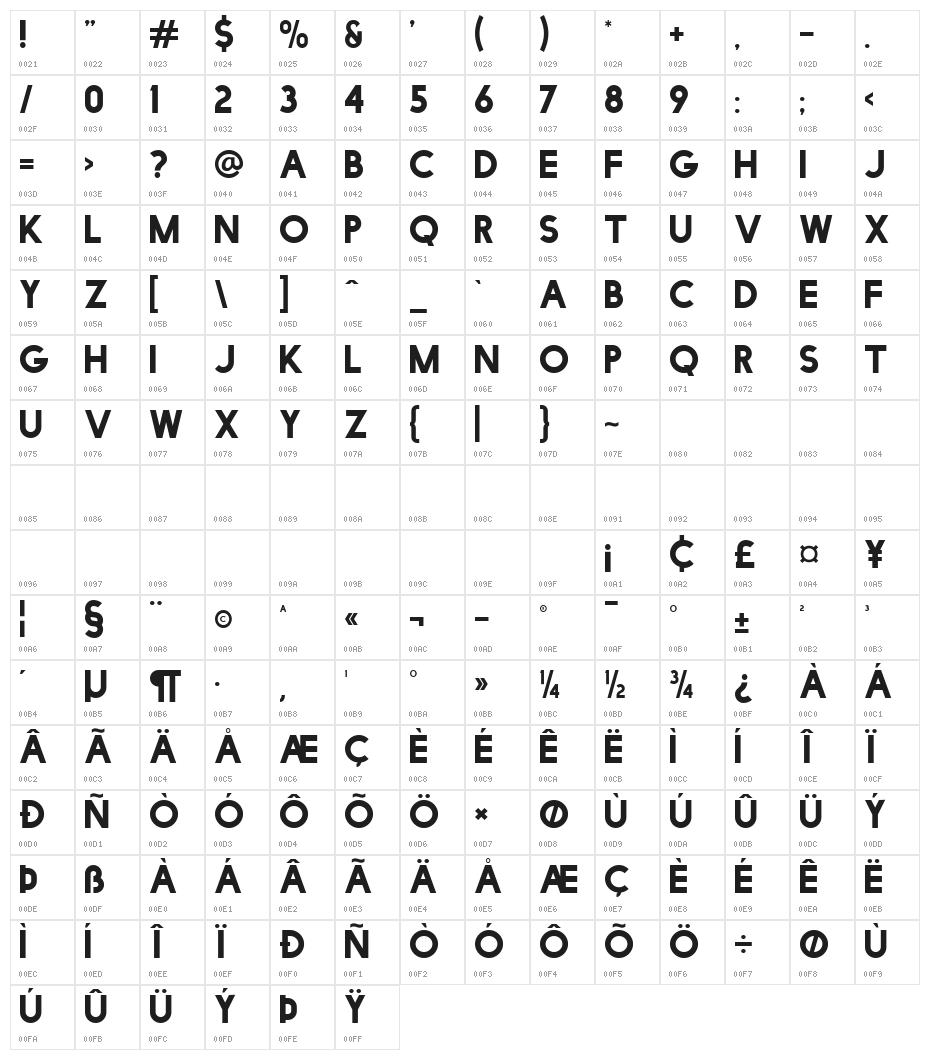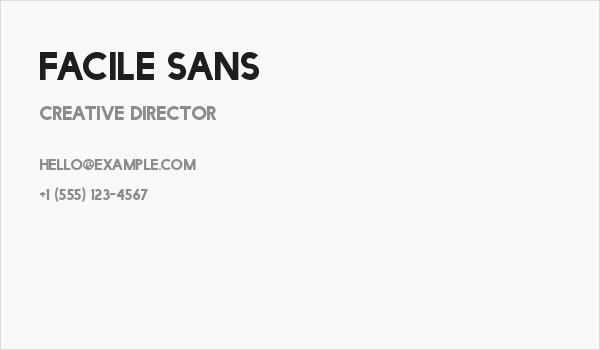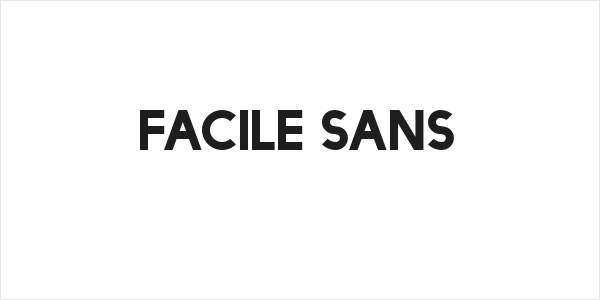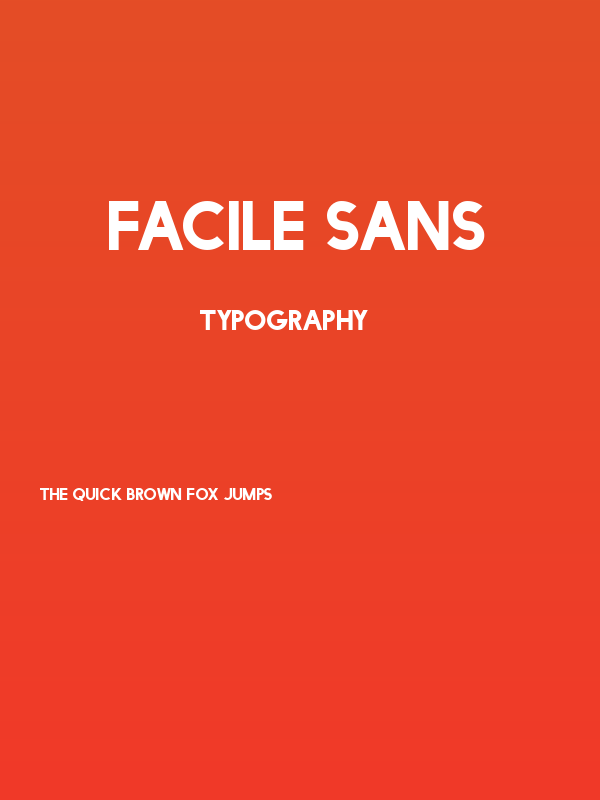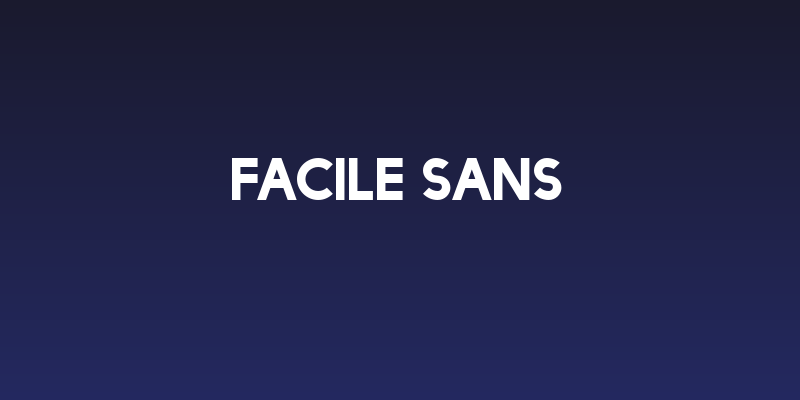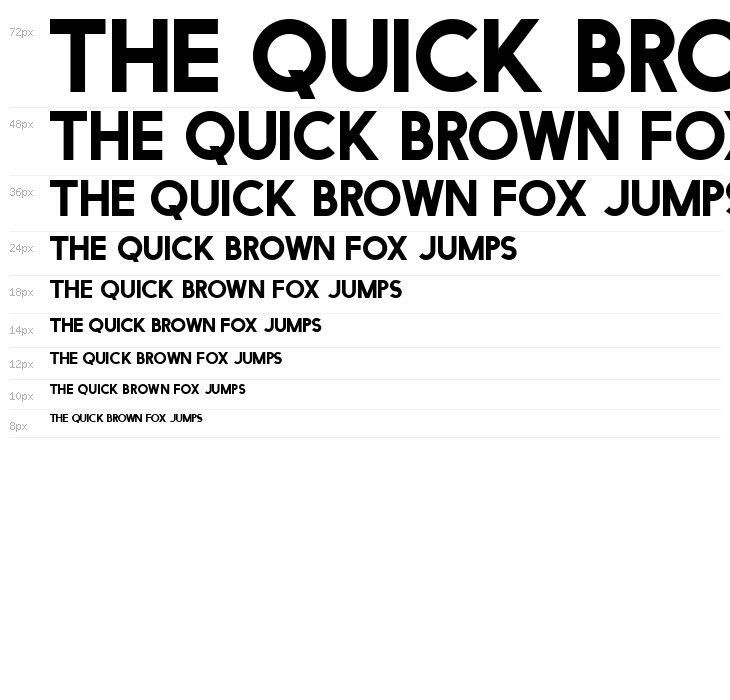
Facile Sans Font
Facile Sans Description
This font features a bold and modern sans-serif design, characterized by clean lines and a strong geometric structure. The uppercase letters are uniform in height, providing a sense of stability and balance. The lowercase letters maintain a consistent style, complementing the uppercase with their rounded forms and smooth curves. The numerals are clear and legible, making them suitable for various applications. Special characters are well-defined, enhancing the font's versatility. Overall, this font exudes a contemporary and professional aesthetic, ideal for making a bold statement.
| Proposed Projects | Ideal for branding, advertising, headlines, and digital media projects. |